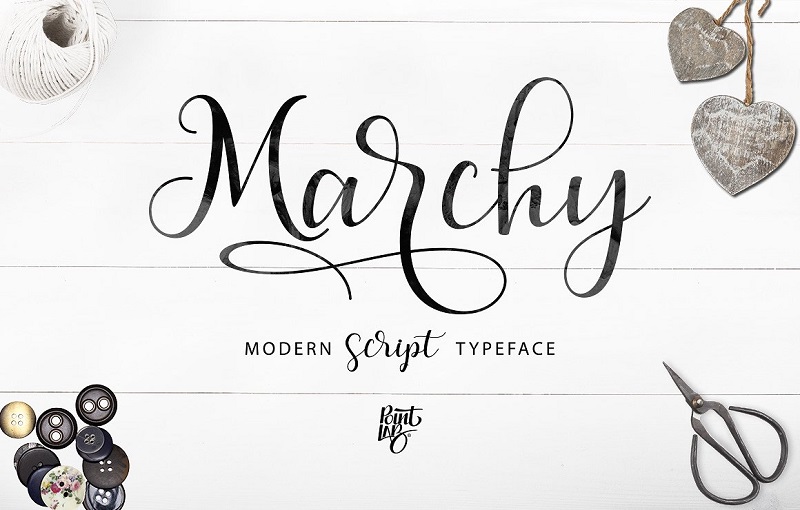
Left justification is best for the hand written look. Browse by alphabetical listing, by style, by author or by popularity. Or a font with better handwriting than you have? Christmas fonts come in four major categories: After composing your message like other christmas letter examples, it's time to finalize everything before sending it. You can get loads of handwriting fonts. Well freerealms has its own font, and when you install freerealms into your computer,you also get the font, just search in your computer there is a large collection of fonts/typeface that imitate handwriting. Do you like handwriting fonts? Search for a deep learning application online that generates a font based on hand writing. Kellyjanecreative.com is your first and best source for all of the information you're looking for. Google fonts now supports variable fonts. French script mt lucida handwritting mistral segoe script i like these because they link the letters to each other like i do when i'm. The subtle texture and quick strokes gives an 19.
Typography (from the greek words τύπος (typos) = form and γραφή (graphe) = writing) is the art and technique of arranging type in order to make language visible. The quivering lines make this font an unconventional, but charming choice for this font would look great as a headline or a drop cap for a lengthy christmas message. The small non cursive font.
If you are quite lazy to learn calligraphy yourself, but you do want to use those beautifully written letters on your site, cards, logo, whatsoever, there's no better option than purchasing a nice. I'm looking for a font that looks like someone signing their signature.
Lozdolls script font is a handwritten font that's bold letters look like they have been written with a marker pen. With the windows font maker app and a digital pen, you can create a font that looks just like your handwriting, because it is! Jay nelson walks us through the options. The subtle texture and quick strokes gives an 19. With about two dozen script and handwriting fonts available, you have lots of choices. Fonts that look like handwriting. Anybody know of one like that? Fonts that support the cyrillic language fontspring: The best selection of handwriting fonts for windows and macintosh. Browse by alphabetical listing, by style, by author or by popularity. Archive of freely downloadable fonts. Google fonts now supports variable fonts. The small non cursive font.
The marhaban font looks just as unique as it sounds. I'm looking for a font that looks like someone signing their signature. When thinking of fonts that look like handwriting, this one really springs to mind!
French script mt lucida handwritting mistral segoe script i like these because they link the letters to each other like i do when i'm.
Search for a deep learning application online that generates a font based on hand writing. Google fonts now supports variable fonts. The marhaban font looks just as unique as it sounds. She wrote about it a couple of years ago. Christmas is the best time to send a heartfelt letter to your friends, family, relatives, and all those closest to you. Typography (from the greek words τύπος (typos) = form and γραφή (graphe) = writing) is the art and technique of arranging type in order to make language visible. Or, you could use a handwriting font, a typeface that looks like it's been written by hand. All cyrillic fonts by russian, serbian, north macedonian, ukrainian designers 1001fonts: You can get loads of handwriting fonts. Anybody know of one like that? Left justification is best for the hand written look. The big serifs, like cinzel, are good for seasonal branding work like headlines on banners and homepage takeovers. With the windows font maker app and a digital pen, you can create a font that looks just like your handwriting, because it is!
Fonts that support the cyrillic language fontspring: Celebrate the christmas holiday and the season of advent.
The best selection of handwriting fonts for windows and macintosh. Created by ronald house, the shopping script font features cursive handwriting.
If you like this site and find it useful, help us to make it better by giving feedback. When thinking of fonts that look like handwriting, this one really springs to mind!
She wrote about it a couple of years ago. It has slanting connected characters that can be read out quite vividly and these would be perfect for apparel design, logotypes, letterheads, christmas.
Browse by alphabetical listing, by style, by author or by popularity. The subtle texture and quick strokes gives an 19.
The quivering lines make this font an unconventional, but charming choice for this font would look great as a headline or a drop cap for a lengthy christmas message. Browse by alphabetical listing, by style, by author or by popularity.